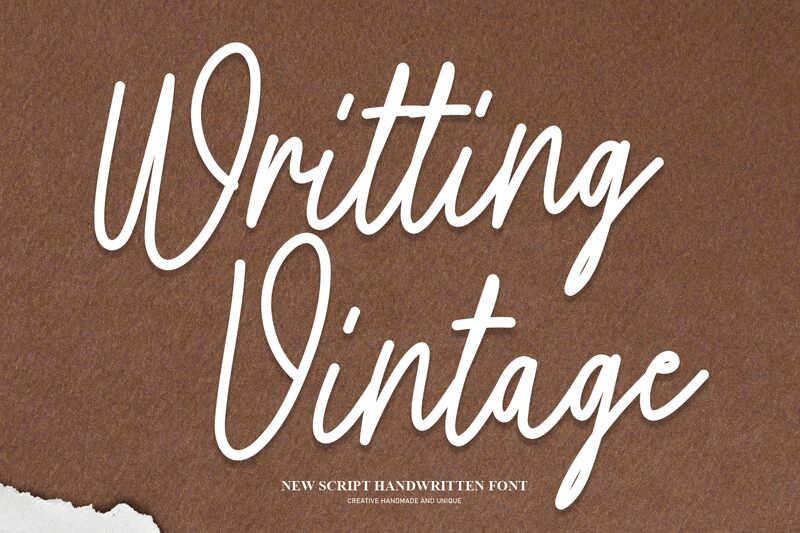
Writting Vintage
Writting Vintage, designed by Scratchones, is a captivating handwritten font that exudes an irresistible vintage charm. With its semi-light weight and semi-condensed width, this font effortlessly captures the essence of old-fashioned elegance.
Perfect for whimsical wedding invitations, nostalgic branding projects, or enchanting book covers, Writting Vintage adds a touch of classic sophistication to any design. Whether you're aiming for a retro-inspired aesthetic or want to infuse your project with timeless appeal, this font is sure to make a lasting impression.